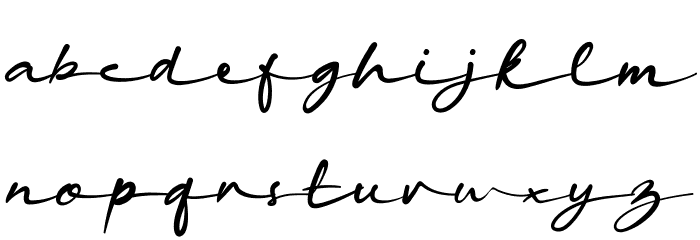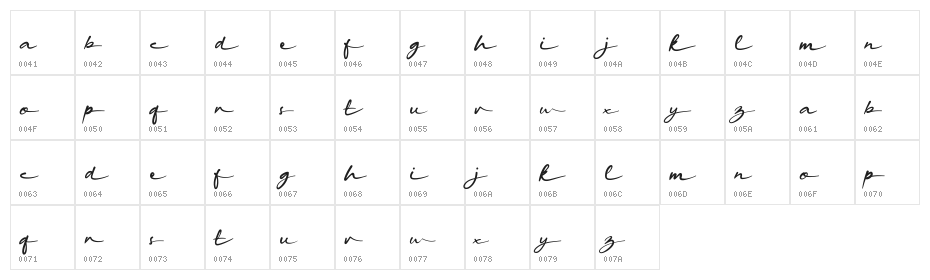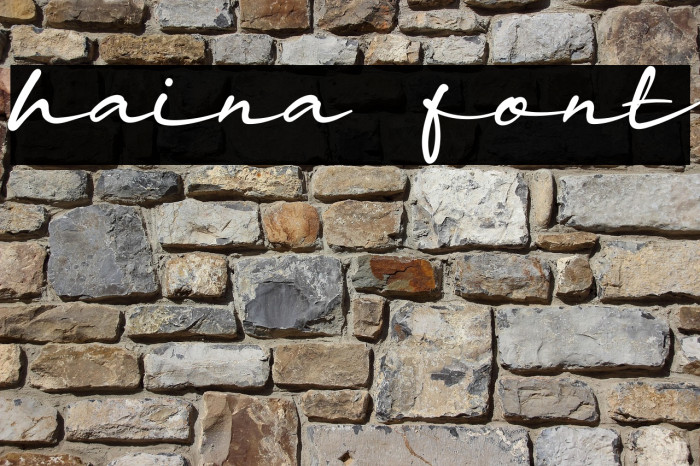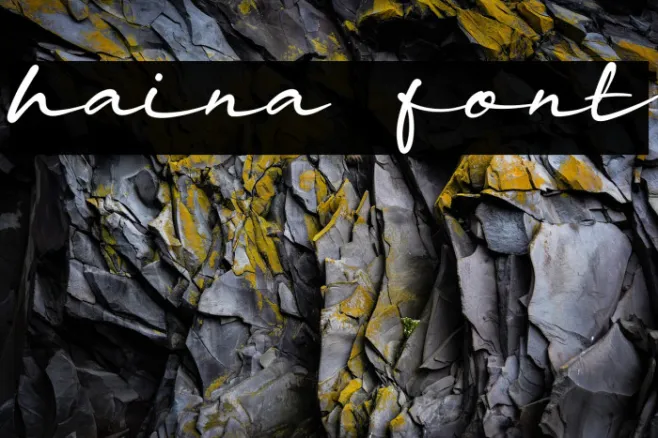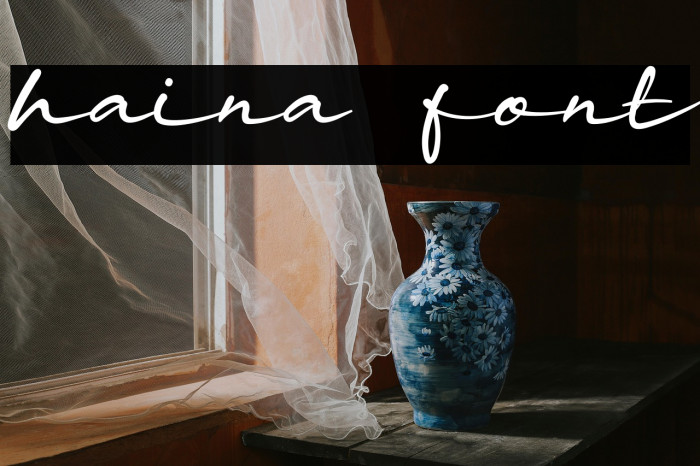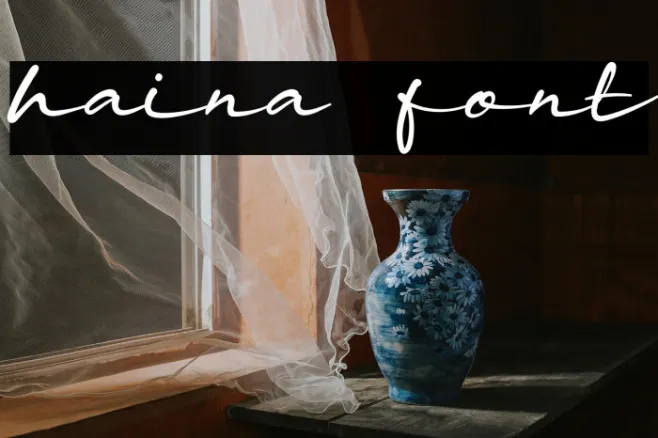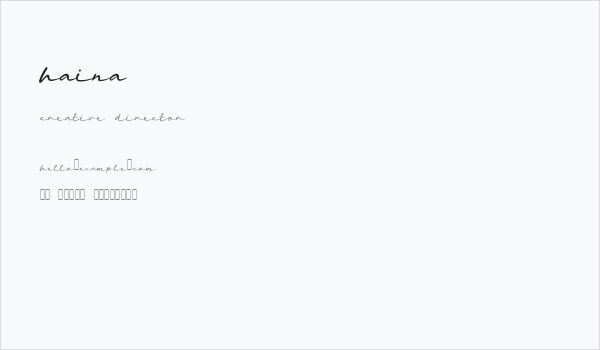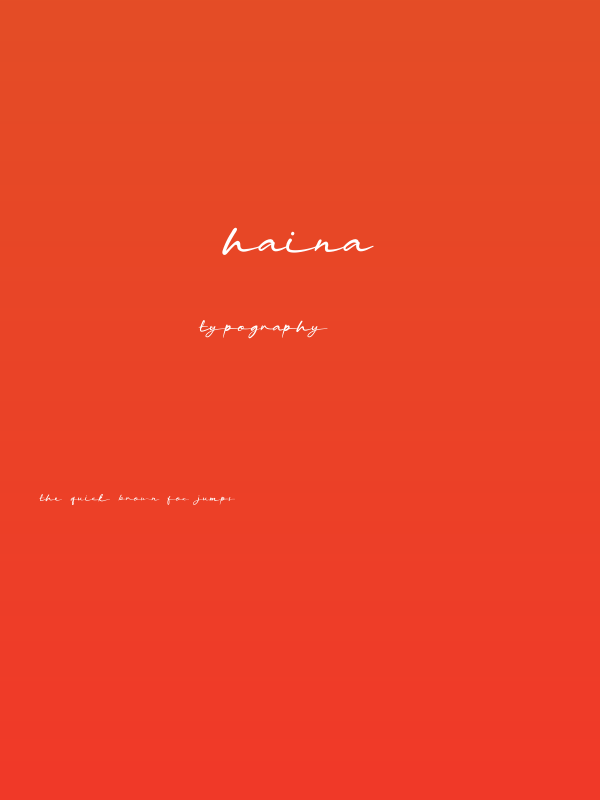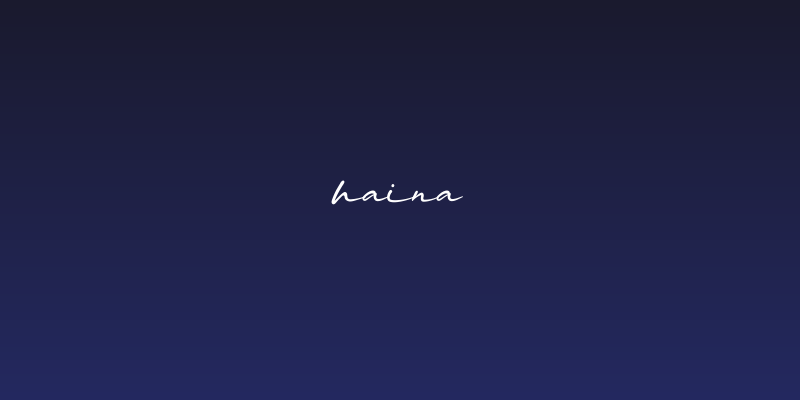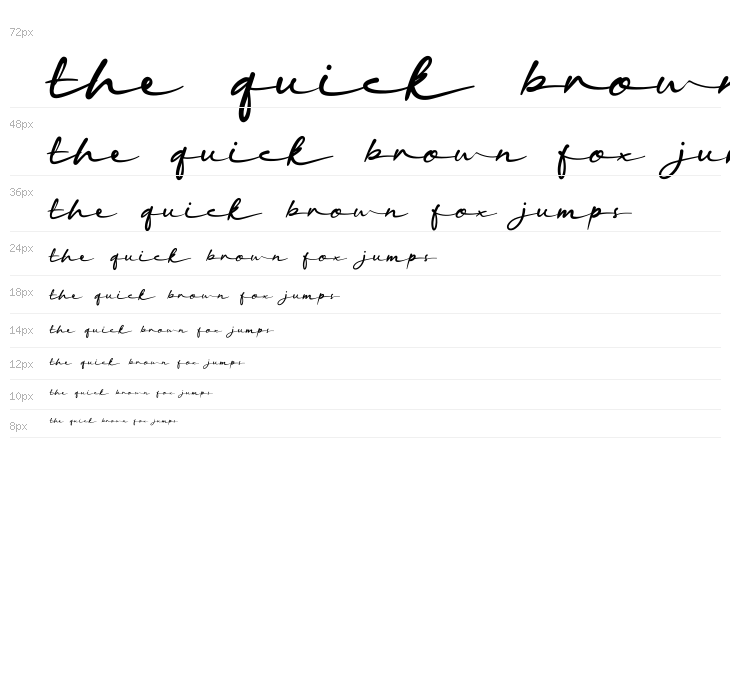
haina Font
haina Description
This font features a flowing, cursive style that mimics elegant handwriting. Each letter is connected with smooth, continuous strokes, creating a sense of fluidity and grace. The characters are slightly slanted, enhancing the handwritten appearance. The font maintains a consistent line weight, offering a balanced and harmonious look. It is ideal for projects that require a personal touch, such as invitations, greeting cards, or branding materials. The overall design is both sophisticated and approachable, making it versatile for various creative applications.
| Use Case | Invitations, Personal branding, Greeting cards |
| Proposed Projects | Ideal for wedding invitations, personal branding, greeting cards, and elegant stationery. |